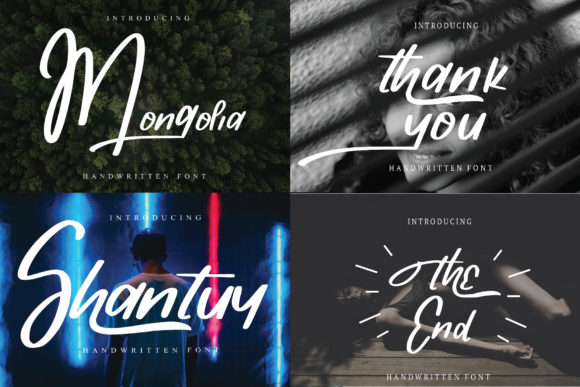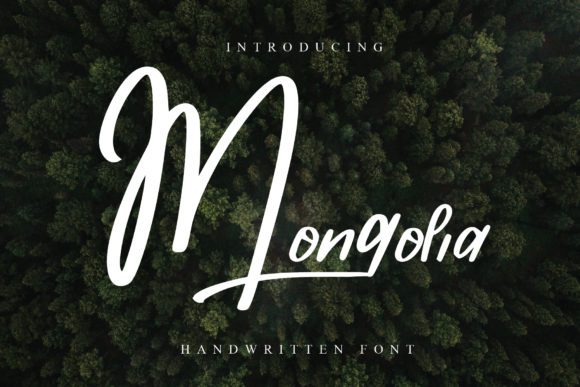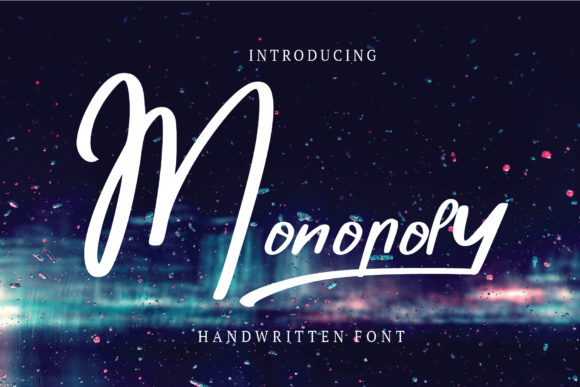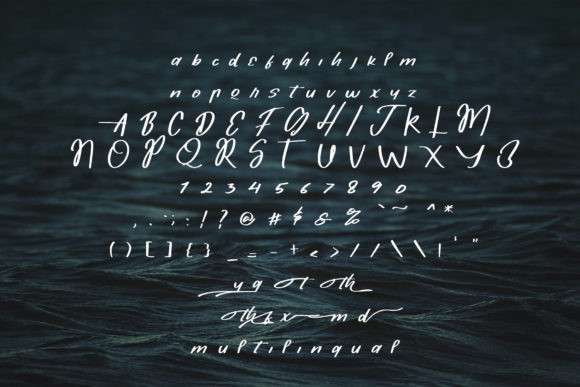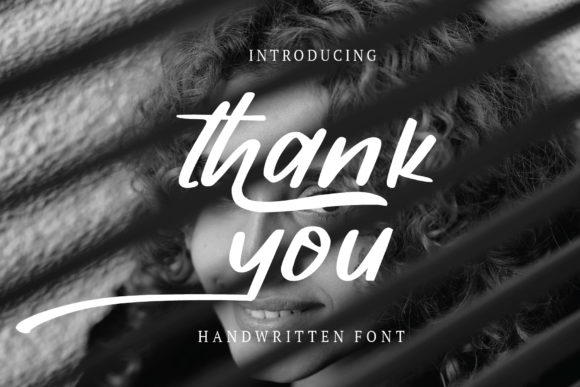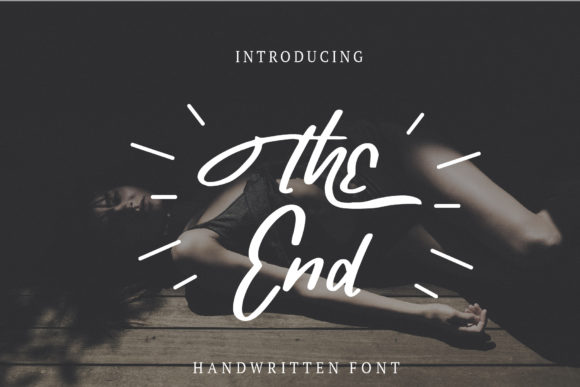
Mongolia Font
About Mongolia Font
Mongolia is a sweet and friendly handwritten font. Its natural and unique style makes it incredibly fitting to a large pool of designs. The only limit is your imagination!